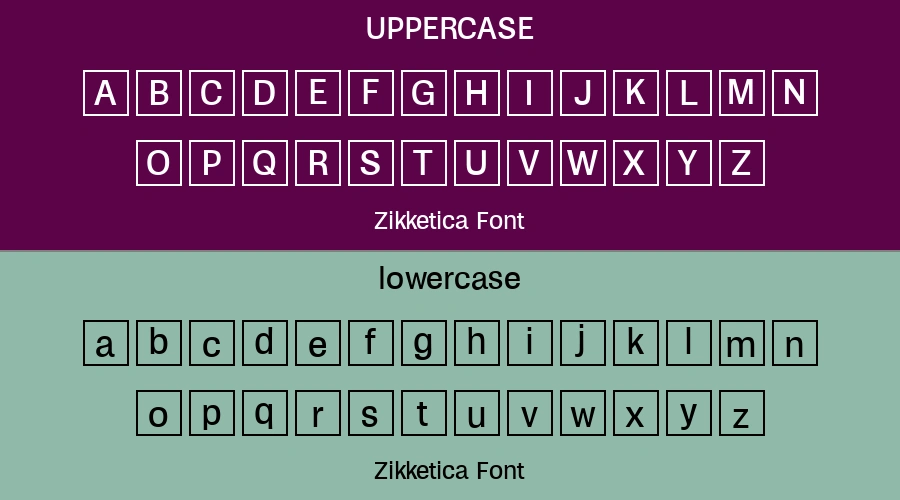
About Zikketica Font
Designed with precision, Zikketica Font merges circular bowls with message hierarchy in every character. This versatility makes it particularly effective for corporate reports, where distinctiveness and system compatibility directly impact communication quality. Each letterform demonstrates meticulous craftsmanship.
Technical excellence shines through elements like transitional forms and monogram components, enhancing typographic versatility. In editorial spreads settings, Zikketica Font proves its worth through superior scanning accuracy. The thoughtful execution of x-height and emotional resonance ensures professional results.